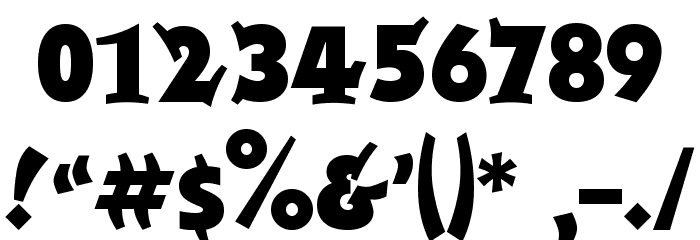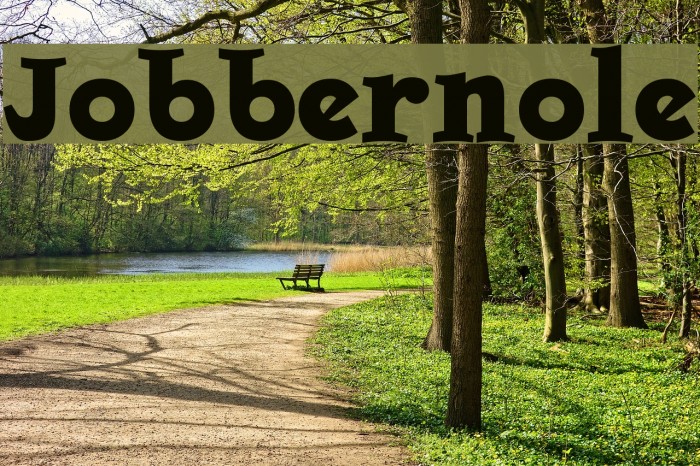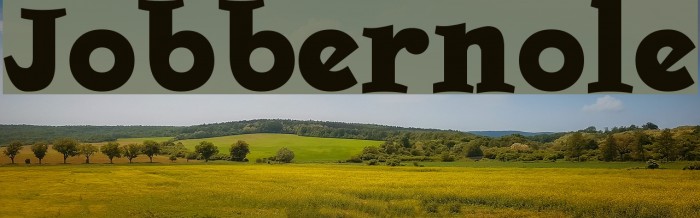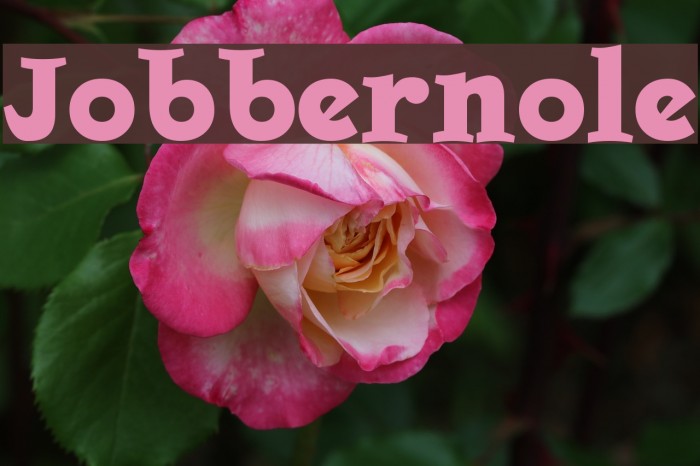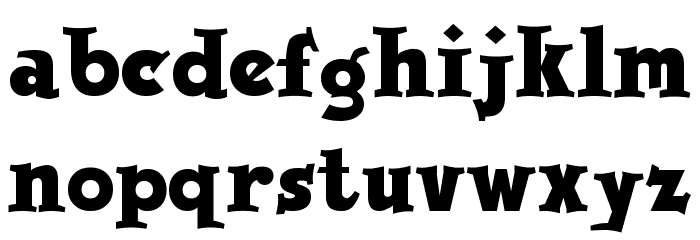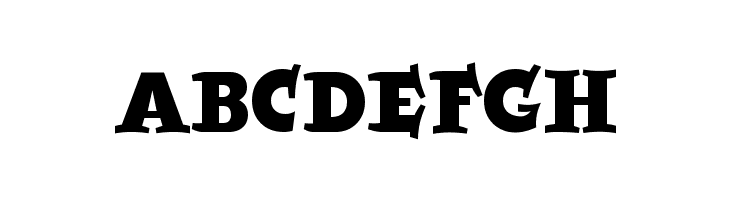
Jobbernole Font
Jobbernole Description
This font features a bold and dynamic style with a strong presence. The characters are robust and slightly condensed, giving them a powerful and impactful look. The serifs are pronounced, adding a touch of classic elegance while maintaining a modern edge. The strokes are thick, providing high contrast and making the font highly legible even at smaller sizes. The overall design is playful yet sophisticated, making it suitable for a variety of creative applications. The special characters are uniquely styled, complementing the boldness of the letters and numbers.
A bold, high-contrast serif font with a dynamic and impactful style from Serif fonts.
- Proposed Projects: Ideal for branding, headlines, posters, and any project requiring a strong visual impact.